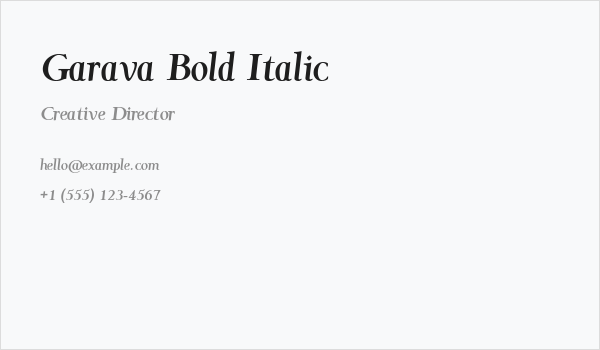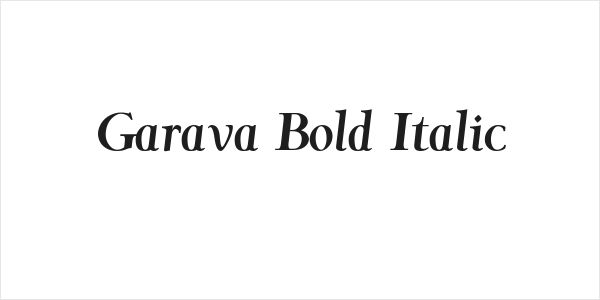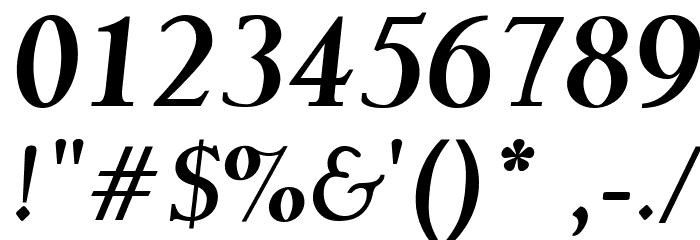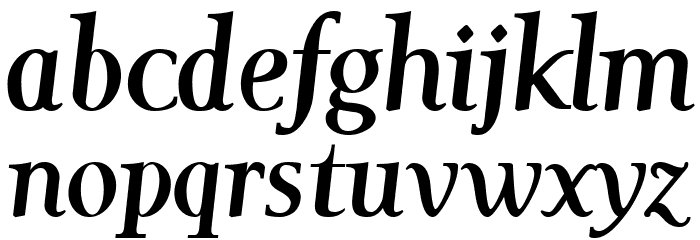
Garava Bold Italic Font
Garava Bold Italic Description
This font exhibits a bold and italicized style, characterized by its strong and dynamic presence. The uppercase letters are elegantly slanted, providing a sense of movement and sophistication. The lowercase letters maintain a consistent italic slant, enhancing readability while adding a touch of flair. Numerals are clear and bold, ensuring they stand out effectively. The special characters are well-integrated, maintaining the overall aesthetic of the font. The strokes are moderately thick, contributing to a medium contrast that balances visibility with style. This font is suitable for projects that require a bold statement with a touch of elegance.
| Overall Style | Classic |
| Use Case | Headlines, Logos, Editorial Design |
| Proposed Projects | Ideal for branding, editorial design, book covers, and elegant invitations. |